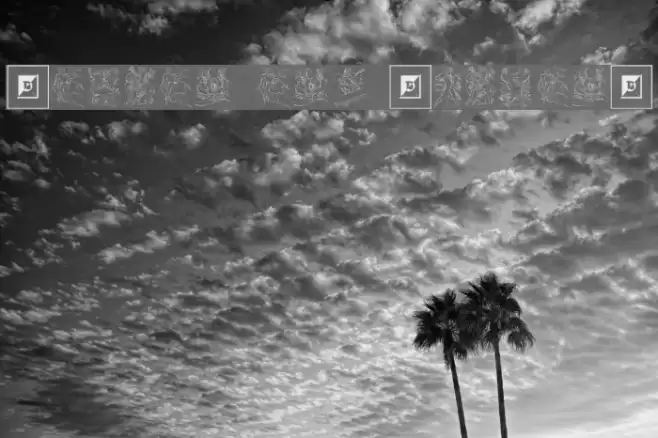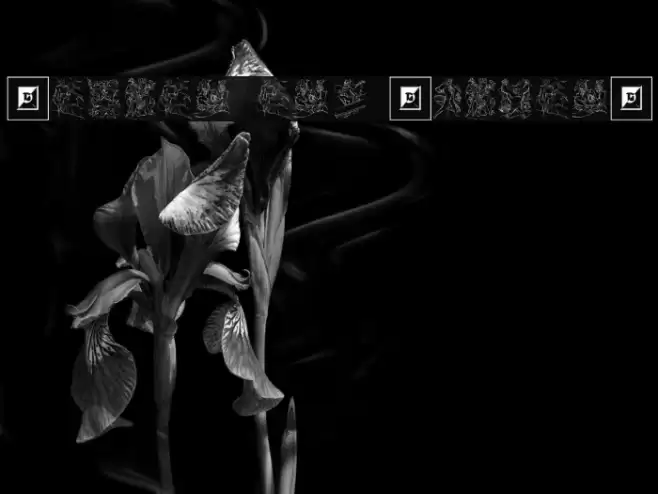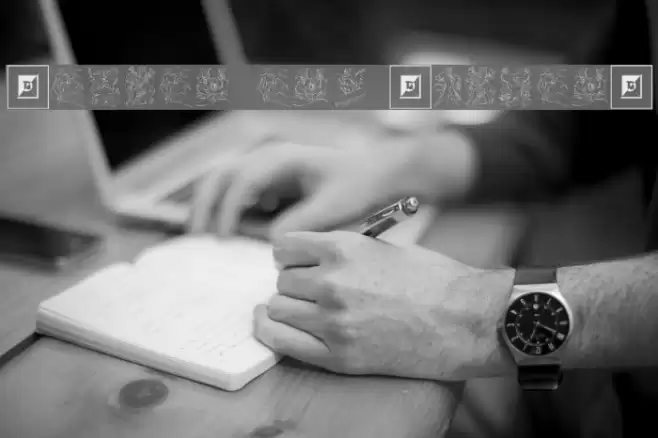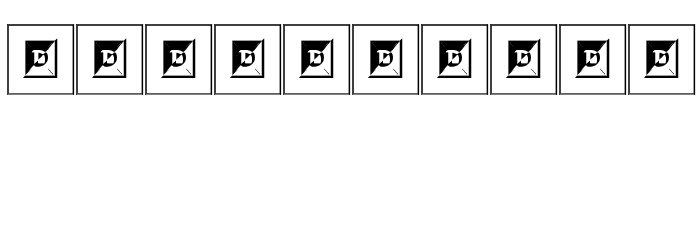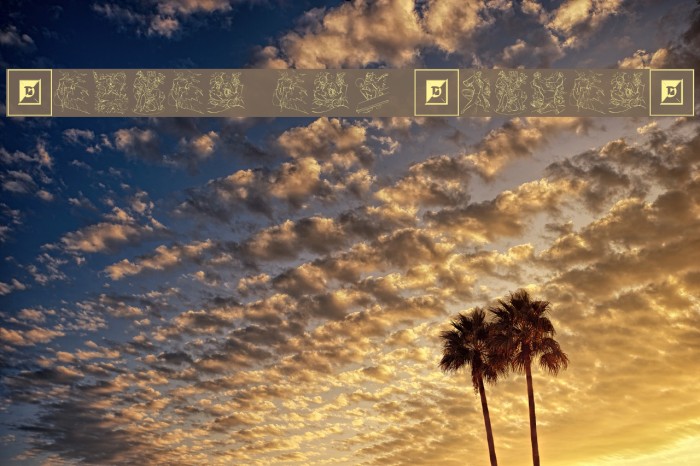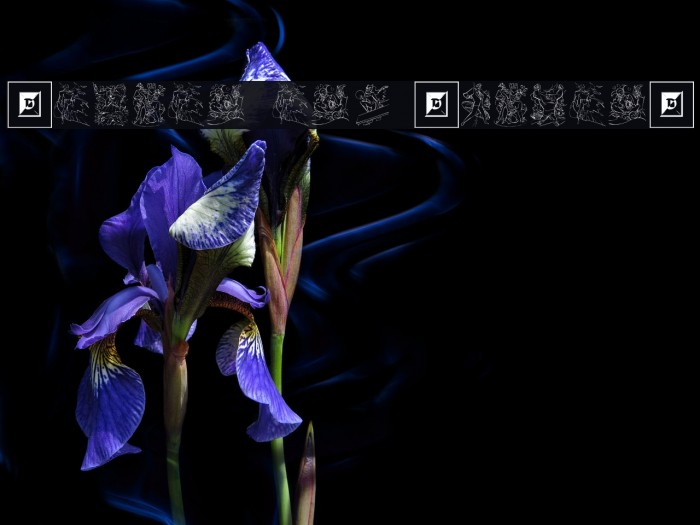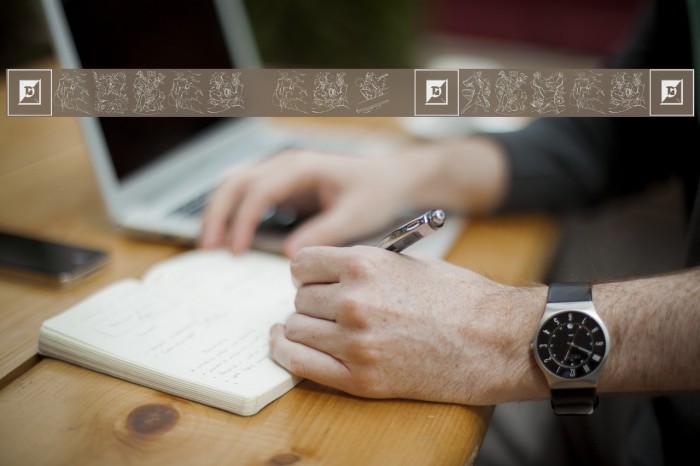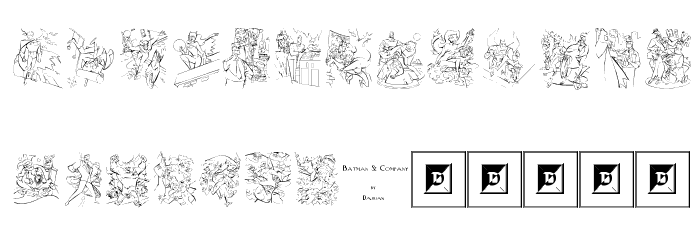
Batman and Company Font
Batman and Company Description
This is not a traditional font but rather a collection of illustrated characters and scenes featuring iconic superhero imagery. Each character or scene is intricately detailed, capturing dynamic action poses and expressive features. The illustrations are monochromatic, emphasizing line work and shading to convey depth and movement. This collection is more of a decorative or thematic set rather than a functional typeface, designed to evoke a sense of adventure and heroism.
A decorative collection of superhero-themed illustrations.
- Proposed Projects: Ideal for comic book designs, themed posters, or merchandise related to superhero narratives.
- Use Case: Decorative illustrations, thematic designs.